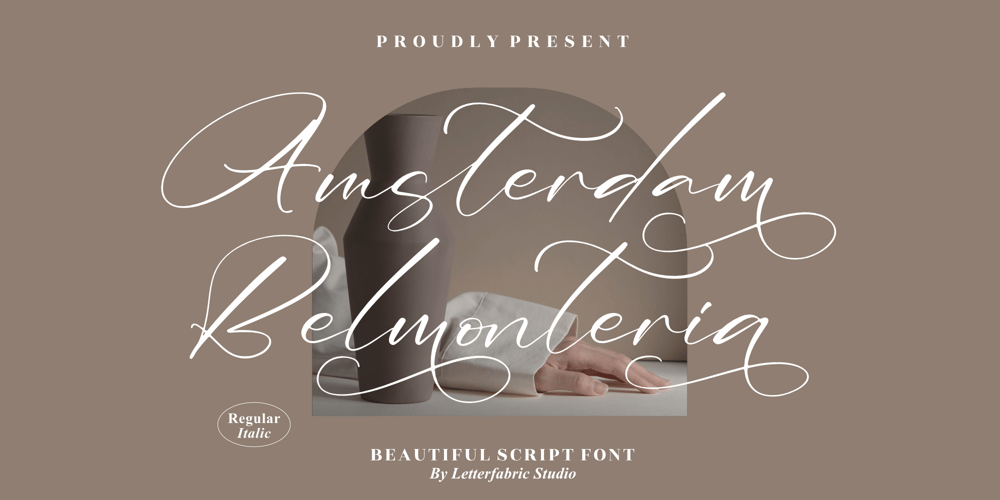
Amsterdam Belmonteria Font Family was designed by Heru Utama Putra and published by Letterena Studios. Amsterdam Belmonteria contains 2 styles and family package options. Amsterdam Belmonteria is a delicate and cursive handwritten font. This gentle font will look gorgeous on a variety of design ideas. This font is PUA encoded which means you can access all of the glyphs and swashes with ease!